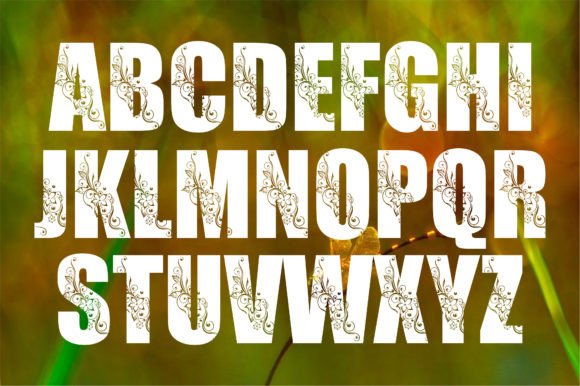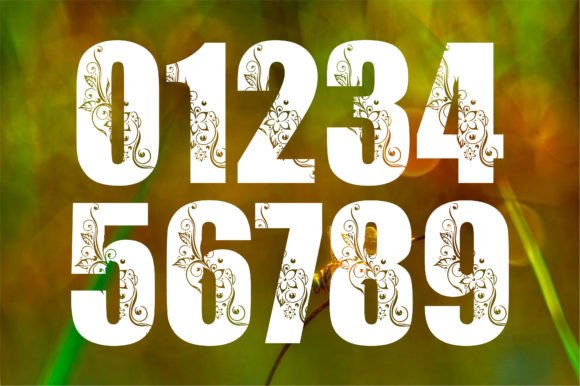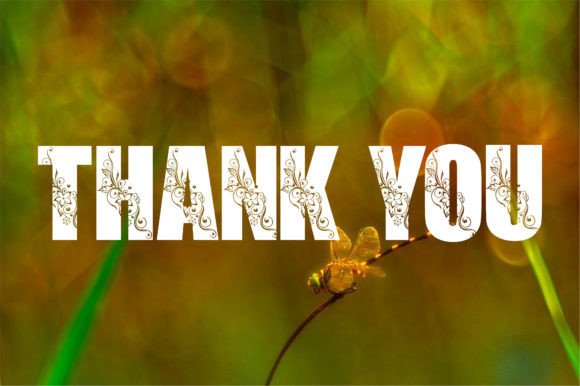
Gavinha Font: Adding a Touch of Joy to Your Designs
In the world of typography, fonts play a crucial role in conveying the tone and personality of a design. If you’re looking for a font that can add a touch of joy and whimsy to your creations, look no further than Gavinha Font. This cool and original-looking decorative font is perfect for designers and crafters who want to add a playful twist to their work.
What is Gavinha Font?
Gavinha Font is a decorative font designed to bring a sense of fun and playfulness to your designs. Its unique and quirky style makes it an excellent choice for cartoon-related designs, children’s games, quotes, titles, brand names, book covers, posters, and any other creation that requires a touch of joy.
Key Features of Gavinha Font
• Unique and Original Style: Gavinha Font boasts a distinctive and original style that sets it apart from other fonts.
• Playful and Whimsical: The font’s playful and whimsical design makes it perfect for designs that require a touch of fun and joy.
• Versatile: Gavinha Font can be used for a wide range of design projects, from cartoon-related designs to book covers and posters.
• Easy to Read: Despite its decorative nature, Gavinha Font is easy to read, making it suitable for use in titles, headings, and short paragraphs.
Use Cases for Gavinha Font
Gavinha Font is a versatile font that can be used in a variety of design projects. Here are some use cases where Gavinha Font shines:
• Cartoon-Related Designs: Gavinha Font is perfect for designing cartoon characters, logos, and titles.
• Children’s Games and Books: The font’s playful style makes it an excellent choice for children’s games, books, and educational materials.
• Quotes and Titles: Gavinha Font can be used to add a touch of personality to quotes, titles, and headings.
• Brand Names and Logos: The font’s unique style makes it suitable for use in brand names and logos that require a playful twist.
• Posters and Flyers: Gavinha Font can be used to create eye-catching posters and flyers for events, promotions, and products.
Tips for Using Gavinha Font
Here are some tips for using Gavinha Font effectively in your designs:
• Use it Sparingly: Gavinha Font is a decorative font, so use it sparingly to avoid overwhelming your design.
• Pair it with Other Fonts: Pair Gavinha Font with other fonts to create contrast and add visual interest to your design.
• Experiment with Colors: Gavinha Font looks great in bold and bright colors, so experiment with different colors to add a pop of color to your design.
Gavinha Font is a cool and original-looking decorative font that can add a touch of joy and whimsy to your designs. Its unique and playful style makes it perfect for a wide range of design projects, from cartoon-related designs to book covers and posters. With its versatility, ease of use, and unique style, Gavinha Font is an excellent choice for designers and crafters looking to add a playful twist to their work.